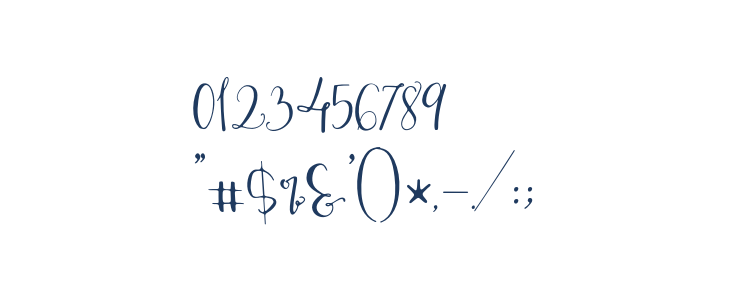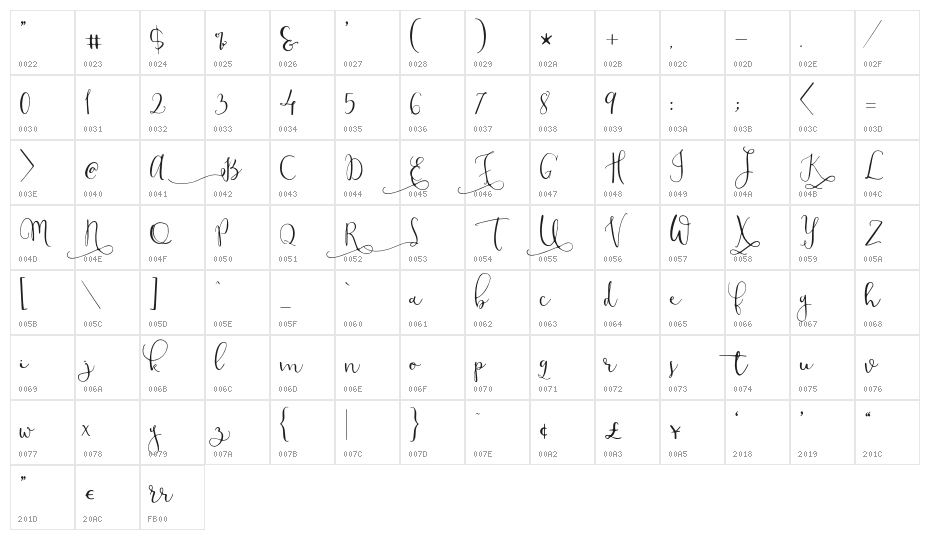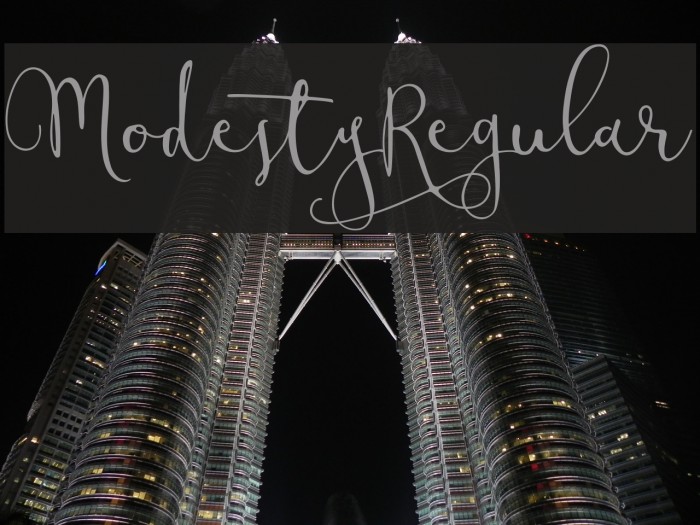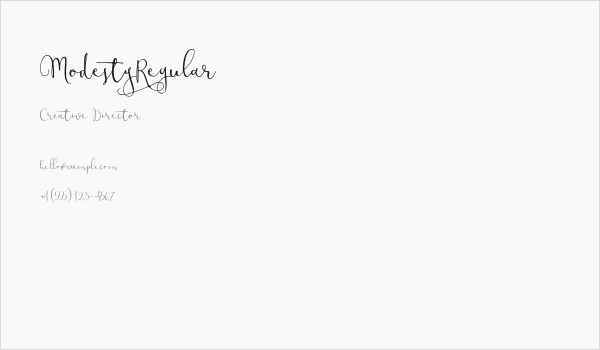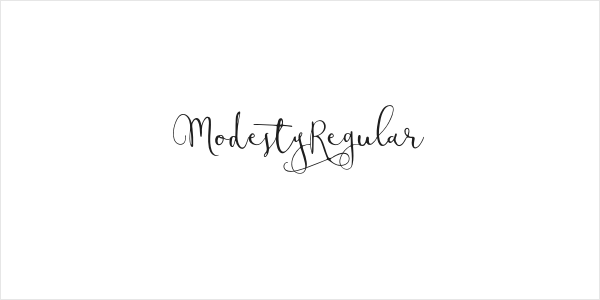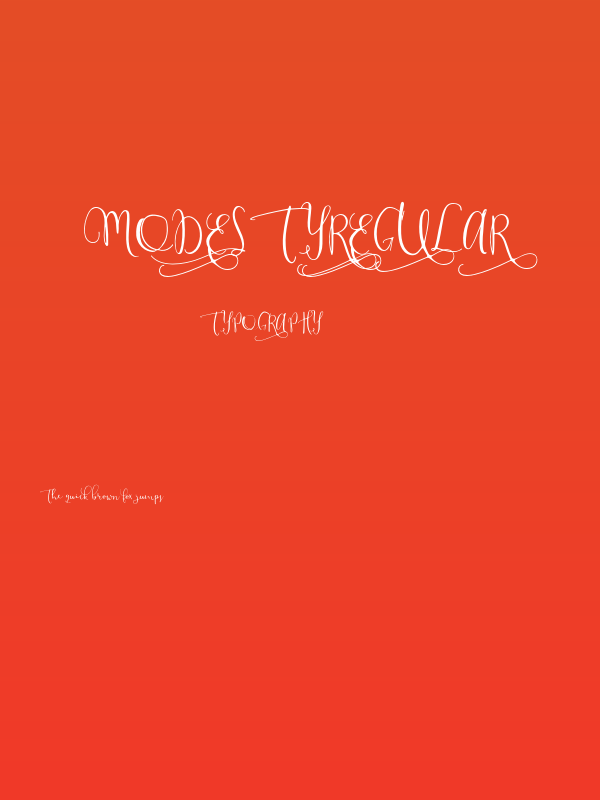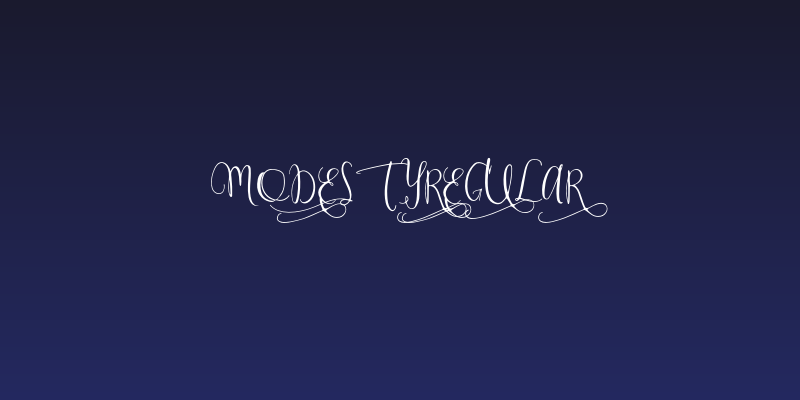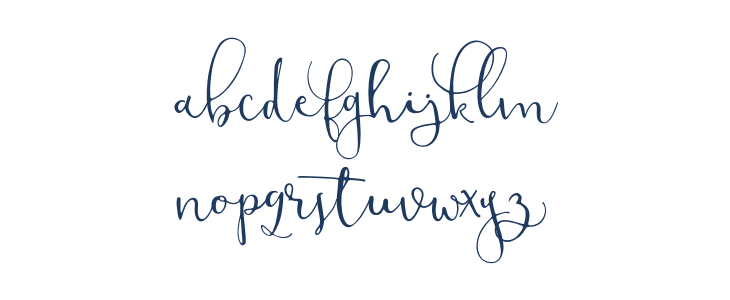
ModestyRegular Font
ModestyRegular Description
This font exudes elegance and sophistication with its flowing, cursive style. The characters are intricately designed, featuring graceful loops and swashes that add a touch of flair to each letter. The uppercase letters are particularly ornate, with extended flourishes that create a sense of movement and fluidity. The lowercase letters maintain a consistent style, complementing the uppercase with their own subtle curves and embellishments. Numbers and special characters are crafted with the same attention to detail, ensuring a cohesive look across all text. This font is perfect for projects that require a personal, artistic touch, such as invitations, greeting cards, or branding materials.
| Proposed Projects | Ideal for wedding invitations, greeting cards, and artistic branding. |